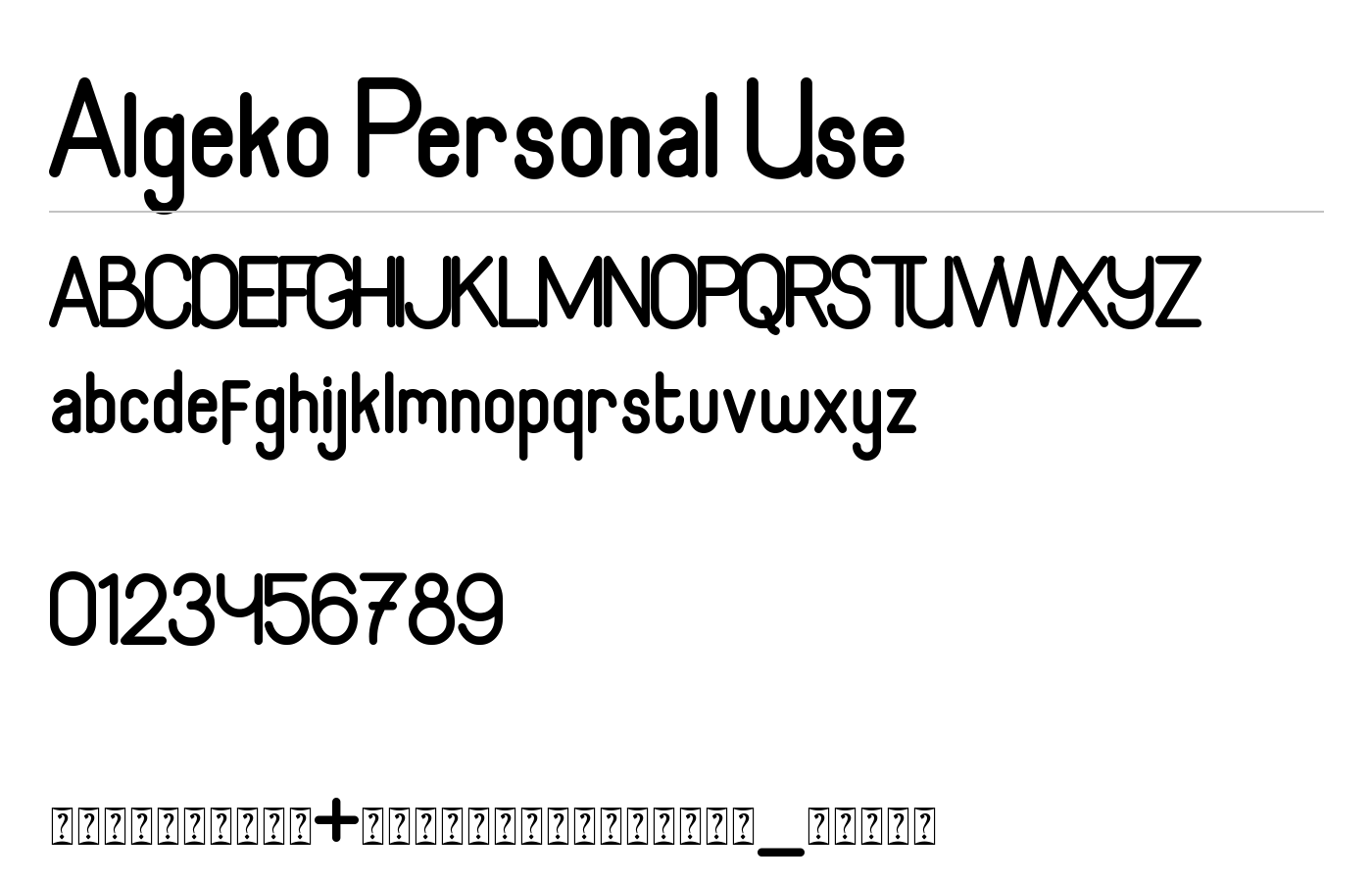
Algeko Personal Use is a unique sans serif font featuring tall, narrow letterforms with rounded edges that create a friendly and approachable feel. Its consistent stroke weight and simple, geometric shapes make it highly legible while adding a touch of modern playfulness, ideal for creative projects, branding, and informal editorial use. This font works well in headlines and logos where a distinctive yet clean style is desired.
Algeko Personal Use Font
About Algeko Personal Use Font